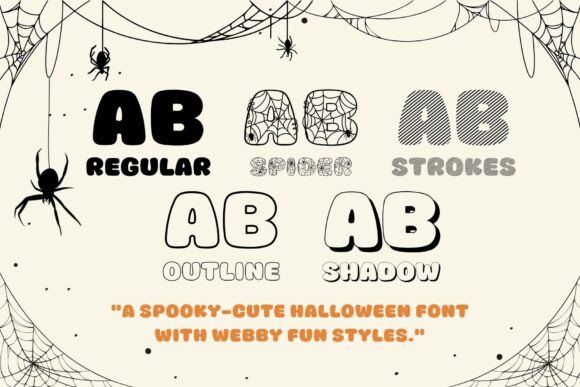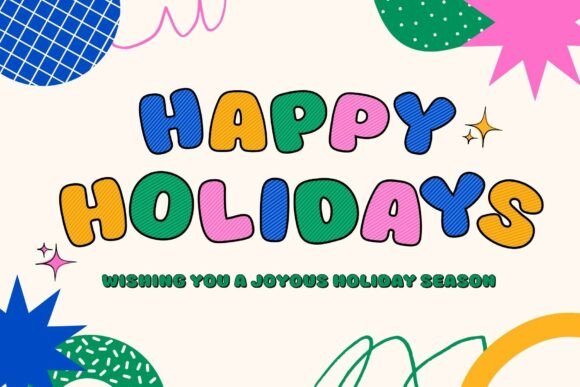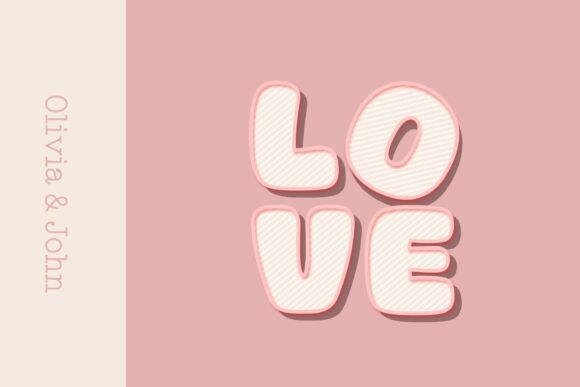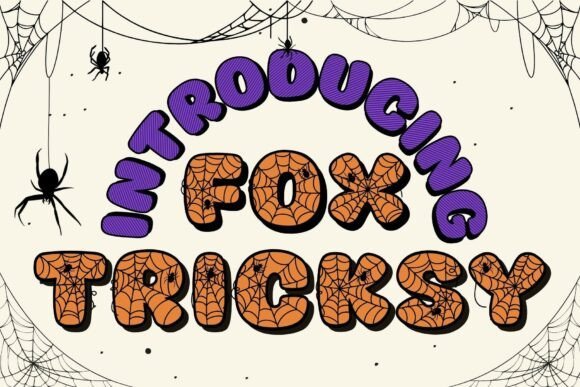
Introduction to Fox Tricksy Font
🎃 Fox Tricksy – A Spooky Cute Display Font Family 🕷️ Get ready for some spooky fun.
Fox Tricksy is a playful Halloween-themed display font family packed with 5 styles: Regular, Spider, Outline, Strokes, and Shadow unique styles to level up your seasonal designs.
Key Features of Fox Tricksy Font